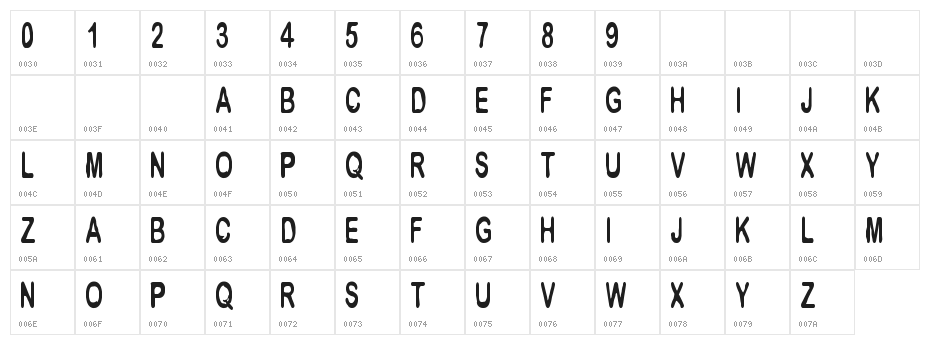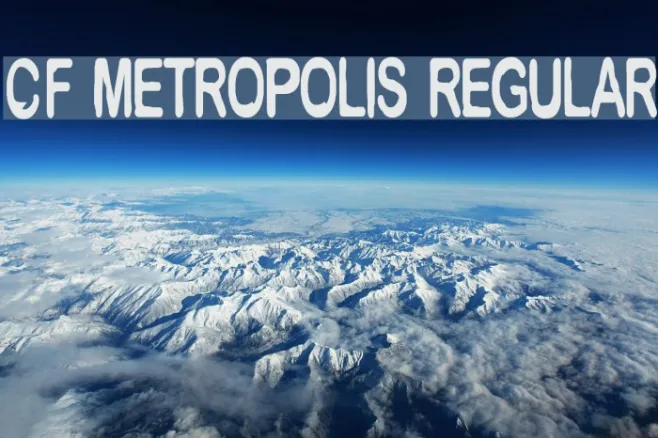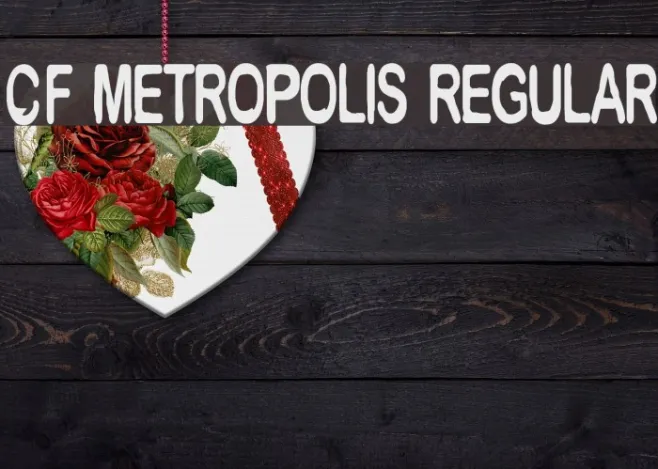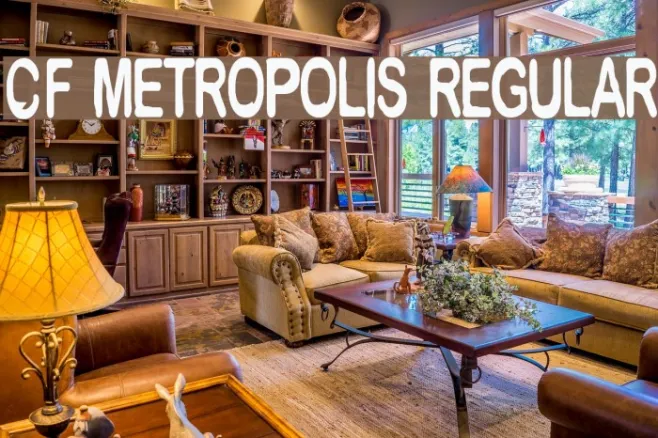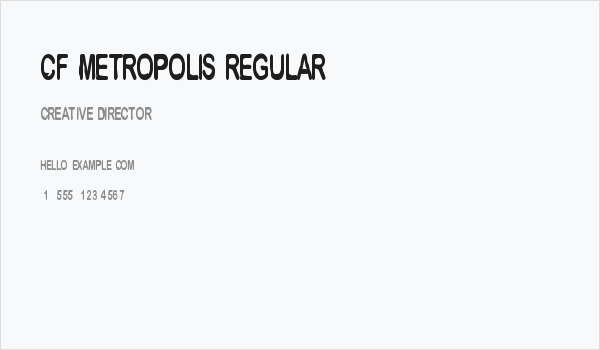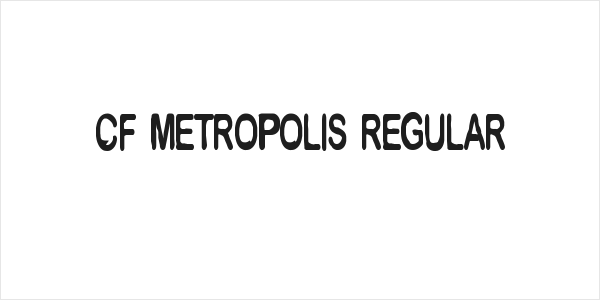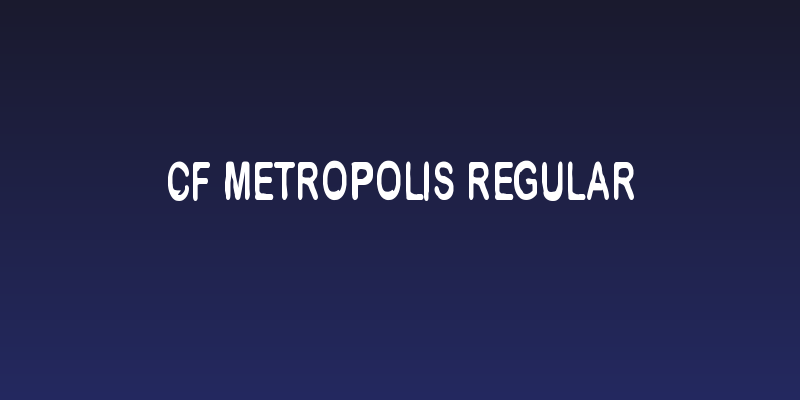
CF Metropolis Regular Font
CF Metropolis Regular Description
This font features a bold and rounded style with a playful yet structured appearance. The characters are uniform in width, providing a consistent and balanced look across all letters and numbers. The rounded edges give it a friendly and approachable feel, while the boldness ensures strong visibility and impact. The font maintains a consistent stroke weight throughout, which contributes to its clean and modern aesthetic. It is versatile enough to be used in various design contexts, from digital to print media.
Proposed ProjectsIdeal for children's books, playful branding, posters, and digital media where a friendly and bold statement is needed.